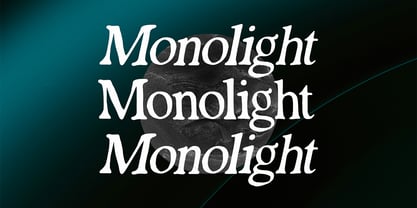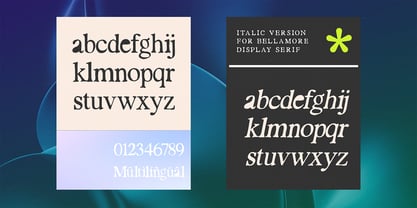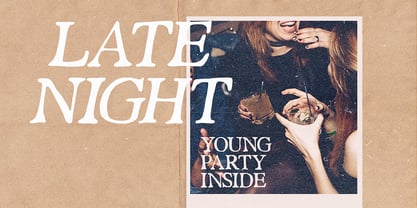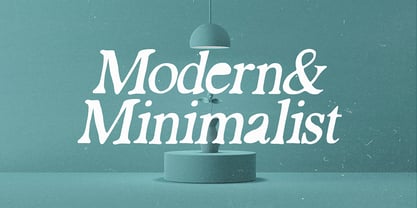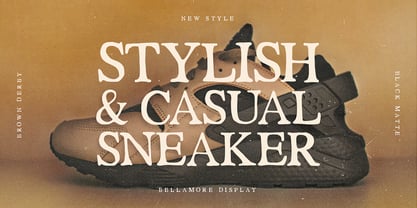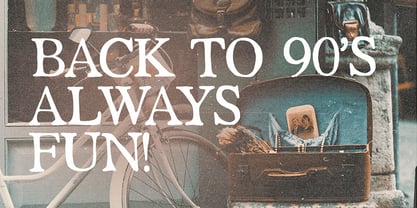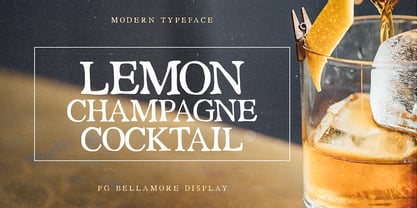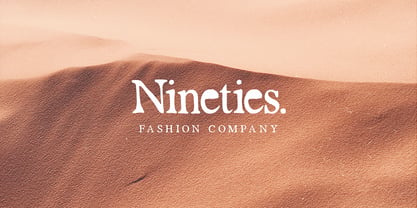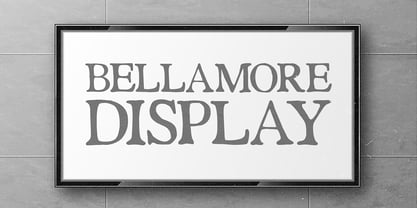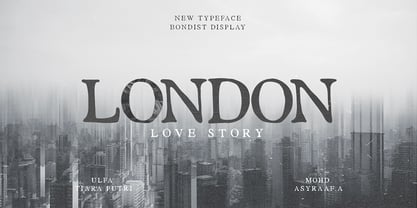
PG Bellamore
by Pretty Glyphs
The PG Bellamore Font Family was designed by Ulfa Tiara Putri and published by Pretty Glyphs. PG Bellamore contains 2 styles and family package options. More about this family
PG Bellamore is an elegant serif display font that blends timeless sophistication with a modern editorial feel. Featuring graceful curves, refined contrast, and beautifully crafted letterforms, it's perfect for luxury branding, fashion, packaging, logos, magazine headlines, invitations, and premium visual identities. Designed to make every word feel bold, stylish, and unforgettable.
Designers: Ulfa Tiara Putri
Foundry: Pretty Glyphs